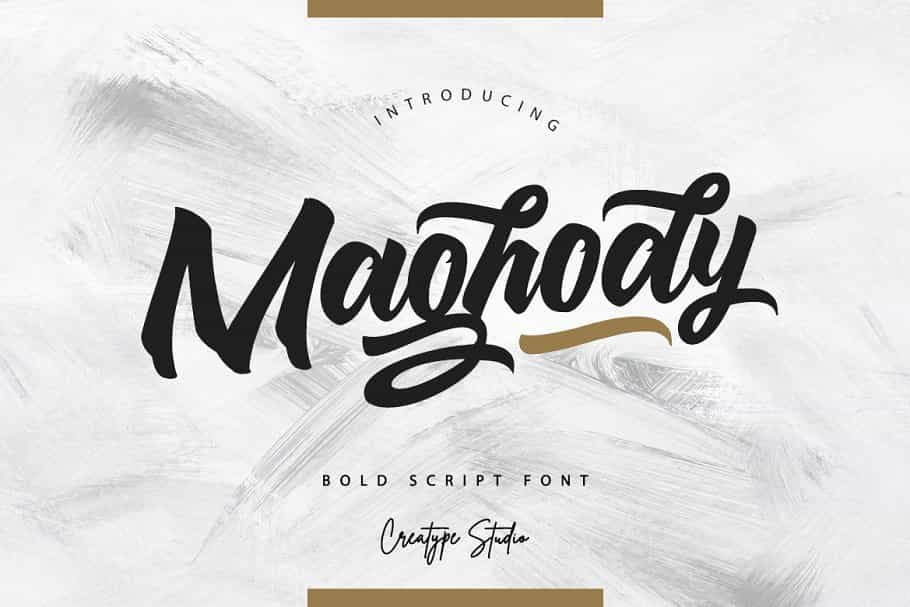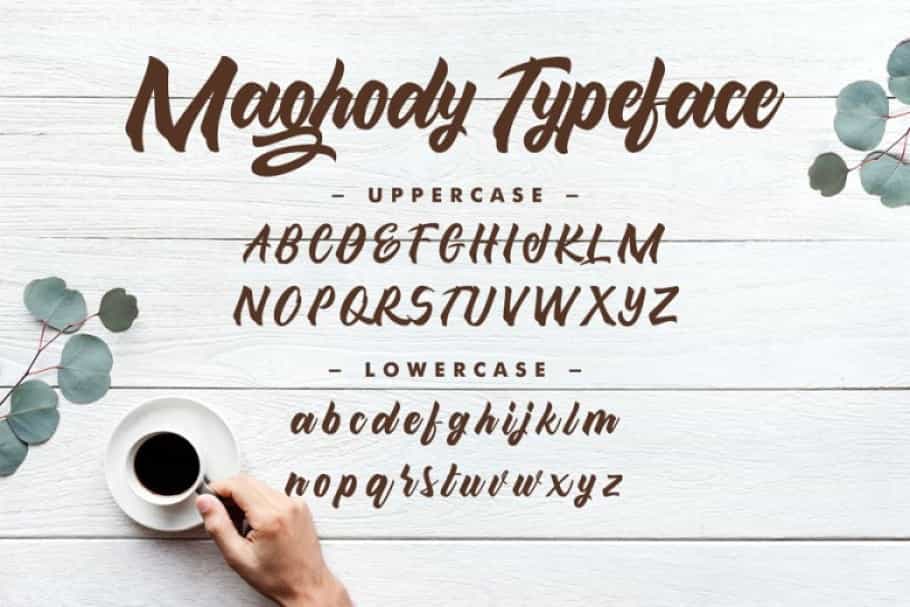
Introducing Maghody script font. Delichia Font was created and then distributed by Wacaksara Co. Maghody Bold Script Font is a script typeface with bold and strong natural movement, this font will be perfect for your different amazing projects.